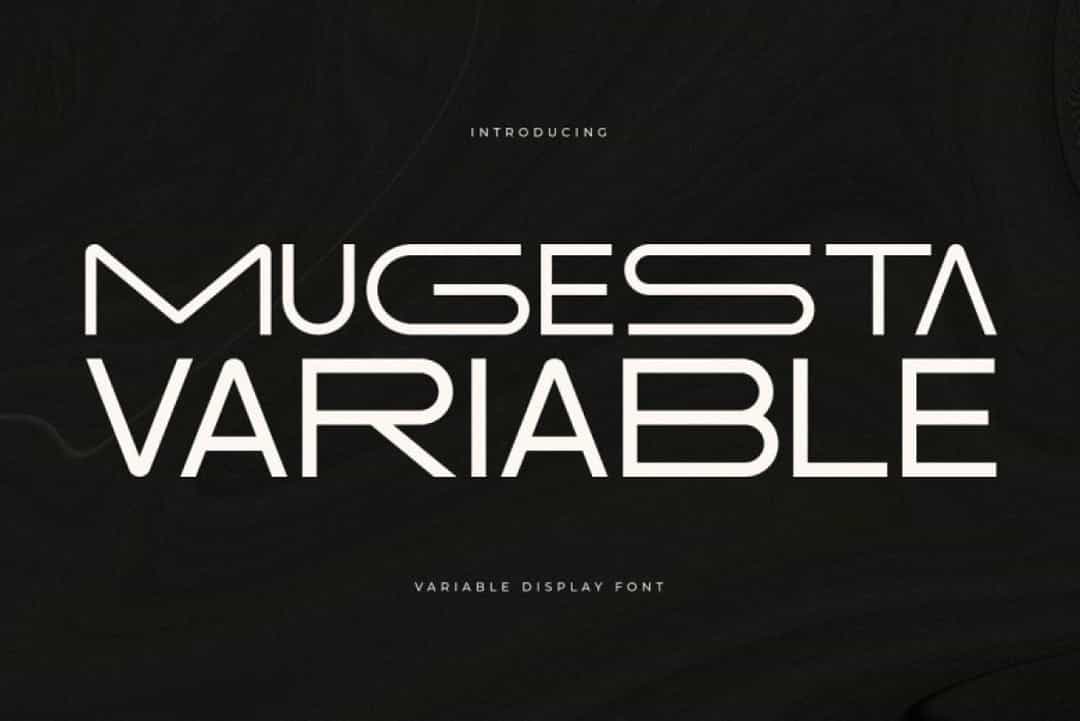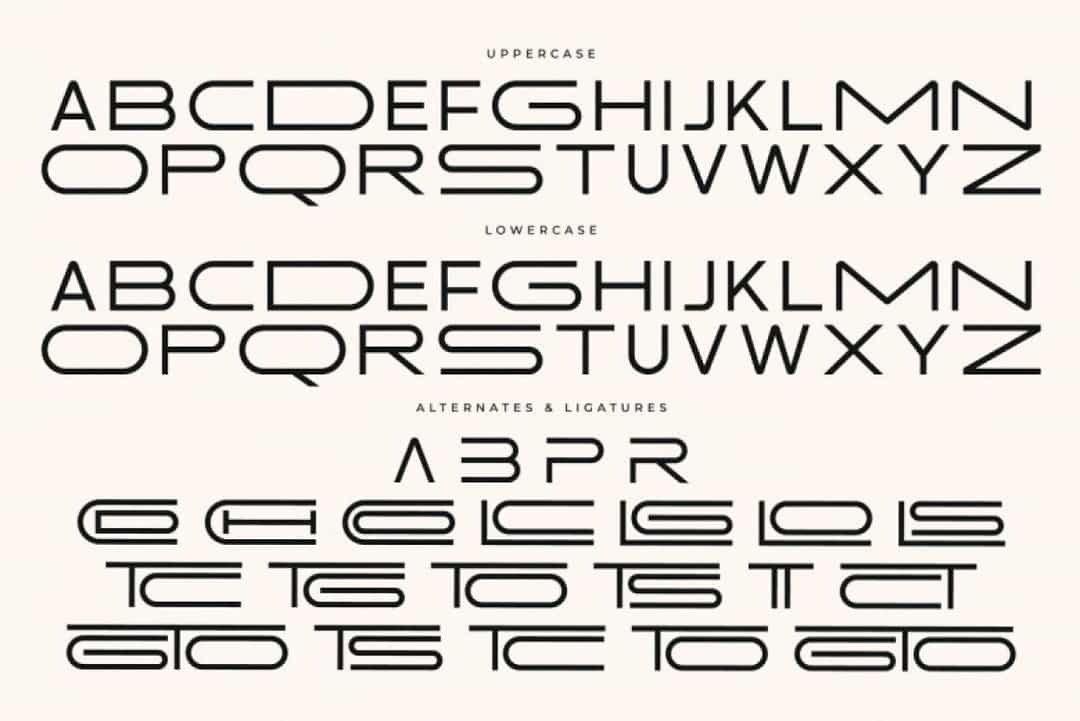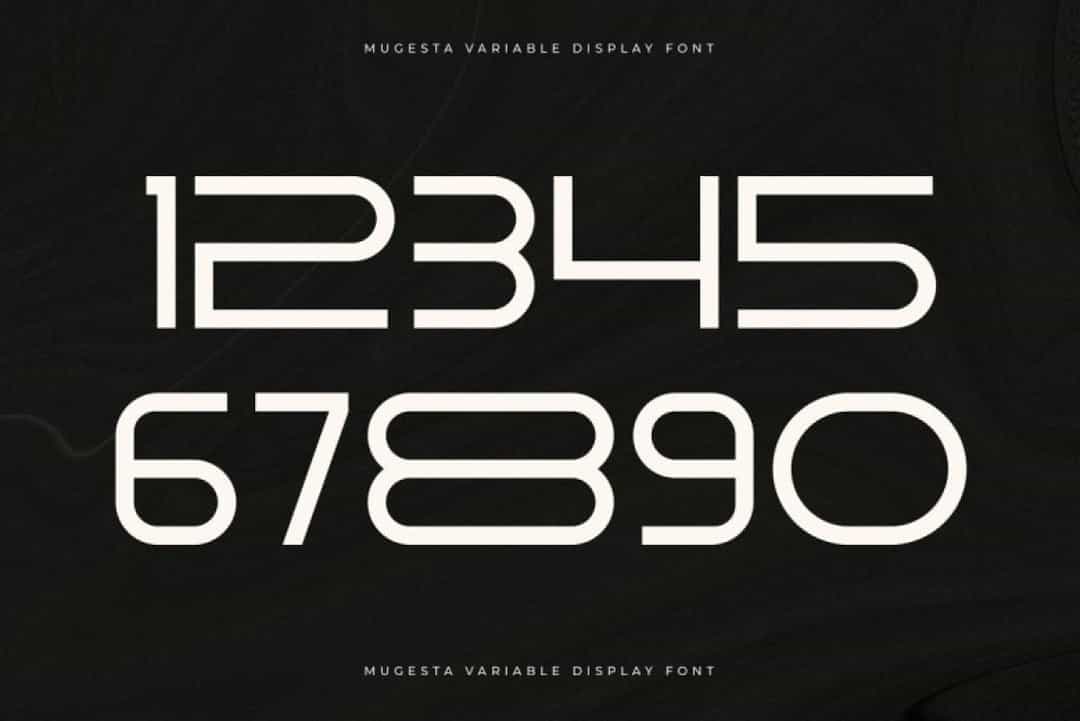
Mugesta is an ambiguous modern sans display typeface with its distinct style and modern appearance, ideal for creating classy logos, movie or book styles, fashion label clothes, magazine letters, quotes, etc. This font can also help add character and charm to clothing labels or quotes in magazine letters and quotes – and many other uses!